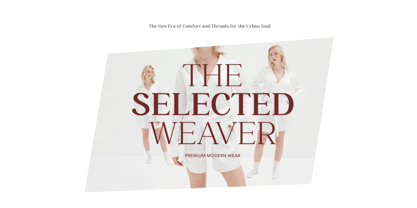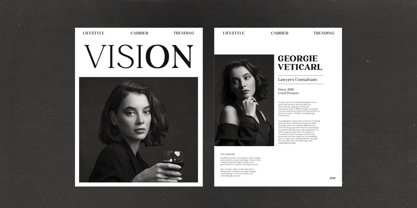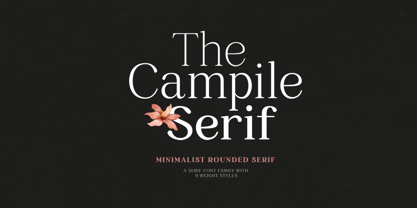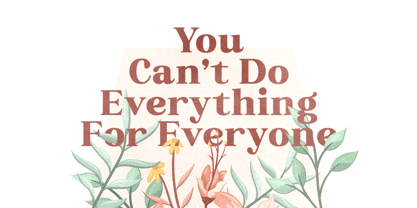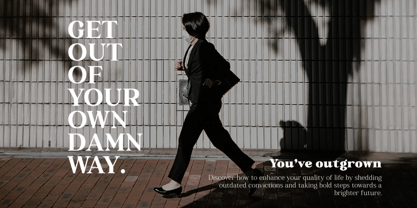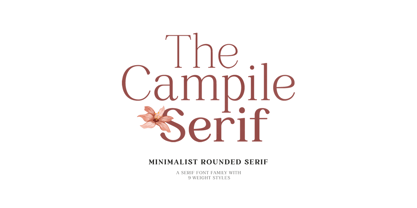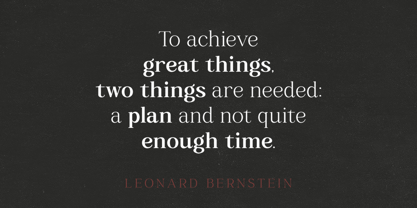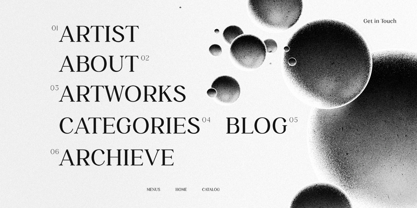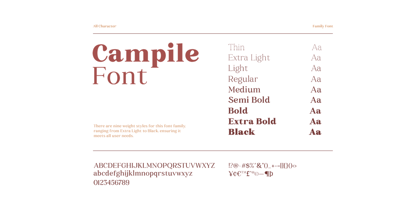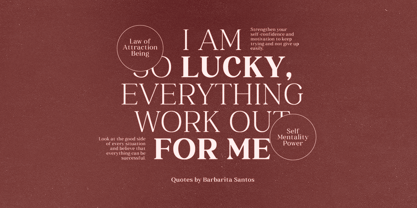
Campile
von Bale Type
Die Schriftfamilie Campile wurde von Sarid Ezra, Dzikrul Aulia entworfen und von Bale Type veröffentlicht. Campile enthält 9 Stile und Familienpaketoptionen. Mehr über diese Familie
Campile is a rounded serif font family with stylish and minimalist looks. With 9 weight including thin, extralight, light, regular, medium, semi bold, bold, extra bold, and black that you can choose that suitable for your project. You can use the light and regular for clean and minimalist looks or bold and extra bold for strong impressions. You also can combine the weight styles that will make your design more stunning. This font also support multi language.
Designer: Sarid Ezra, Dzikrul Aulia
Foundry: Bale Type
Campile